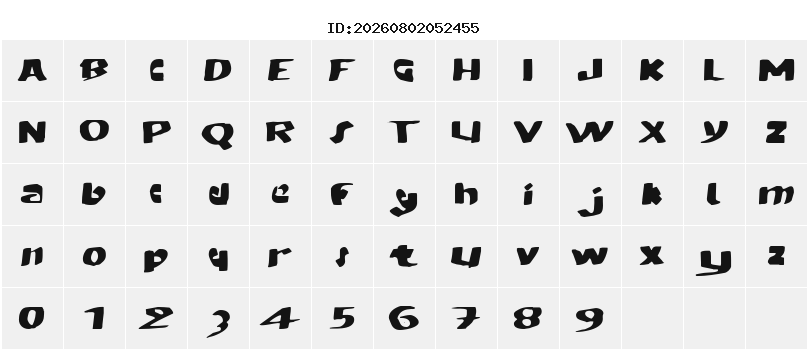
• Font Name: MODERN hand fraktur
• Designer: Manuel Viergutz
About MODERN hand fraktur.ttf
MODERN hand fraktur.ttf is a modern, elegant sans-serif font designed for ultimate readability and visual harmony. Perfect for branding, headlines, web design, and print materials.